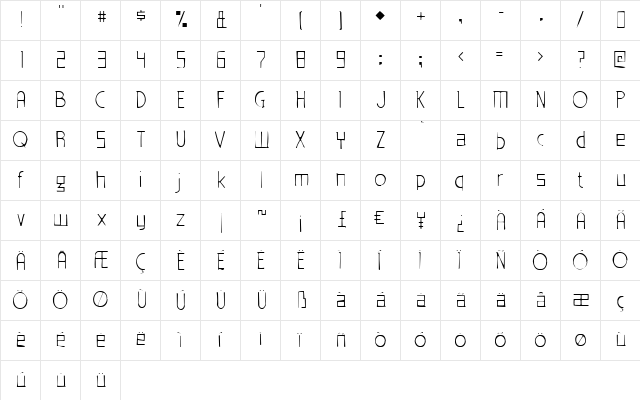
Eden Mills Gaunt Regular
| Designer | Ray Larabie / Larabie Fonts |
Design Context for Eden Mills Gaunt Typeface
Eden Mills Gaunt takes a measured approach to typography — its balanced proportions and neutral character make it a reliable workhorse for both digital and print work.